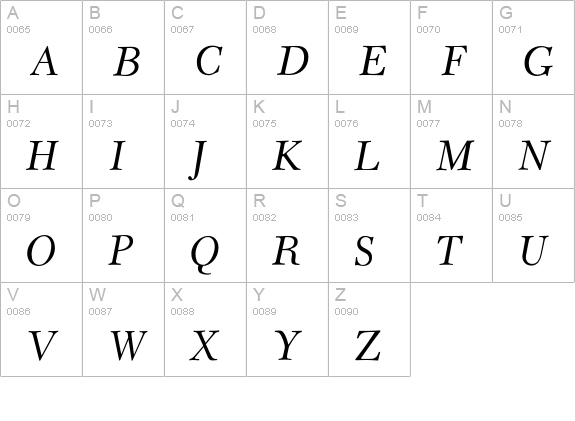
CameliaItalic Font Details
CameliaItalic is a beautifully crafted font that exudes elegance and sophistication. Its slender and graceful letterforms are perfect for adding a touch of class to any design project. The italicized style of this font adds a sense of movement and fluidity, making it ideal for conveying a sense of dynamism and modernity. What sets CameliaItalic apart is not just its stunning aesthetics, but also the fact that it is available for free download at FontsMarket.com. This means that you can easily access this exquisite font without any cost, making it a valuable addition to your design toolkit. Whether you are working on a branding project, a website design, or any other creative endeavor, CameliaItalic is sure to elevate your work with its timeless charm and versatility. Download it today and unleash the beauty of CameliaItalic in your designs.